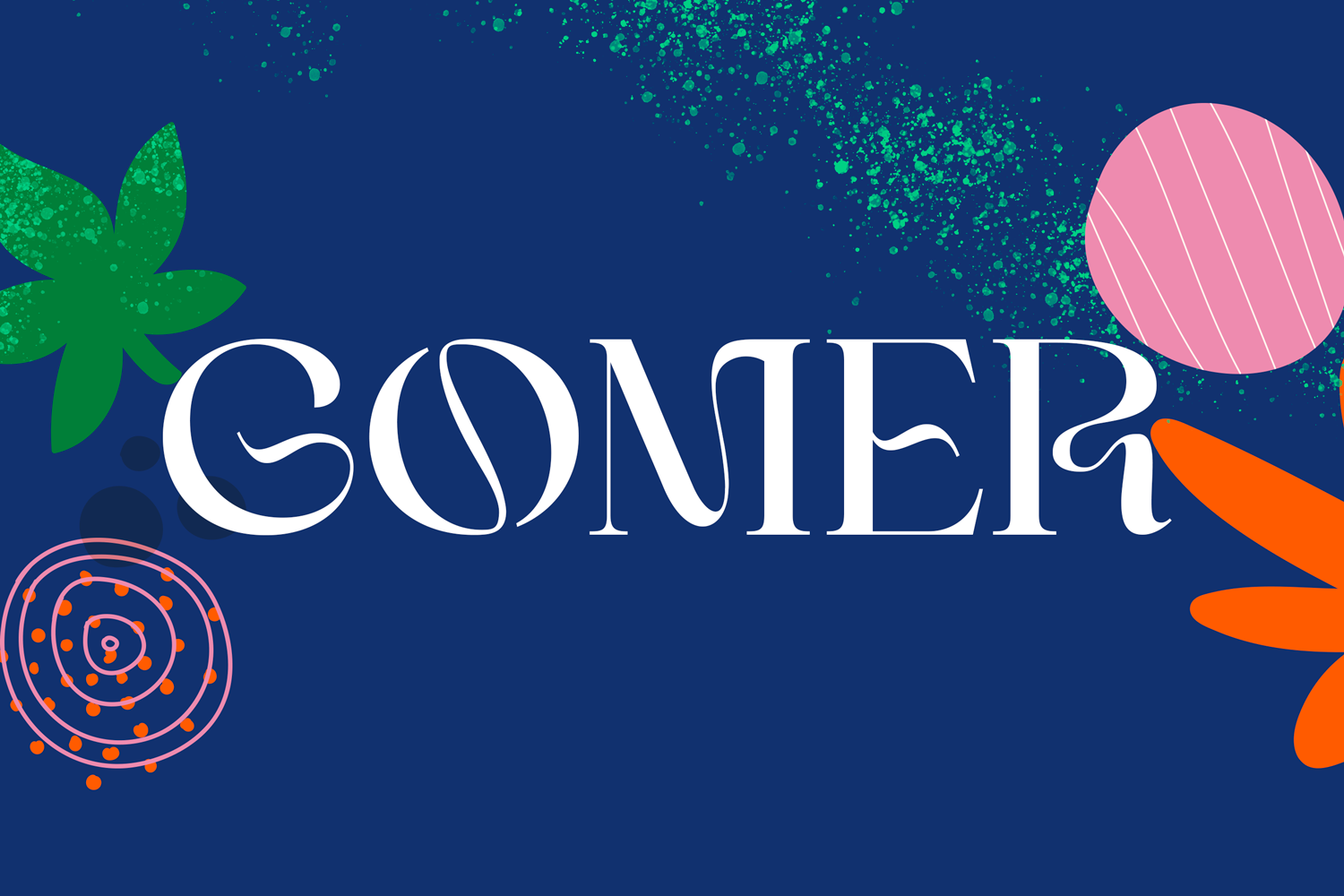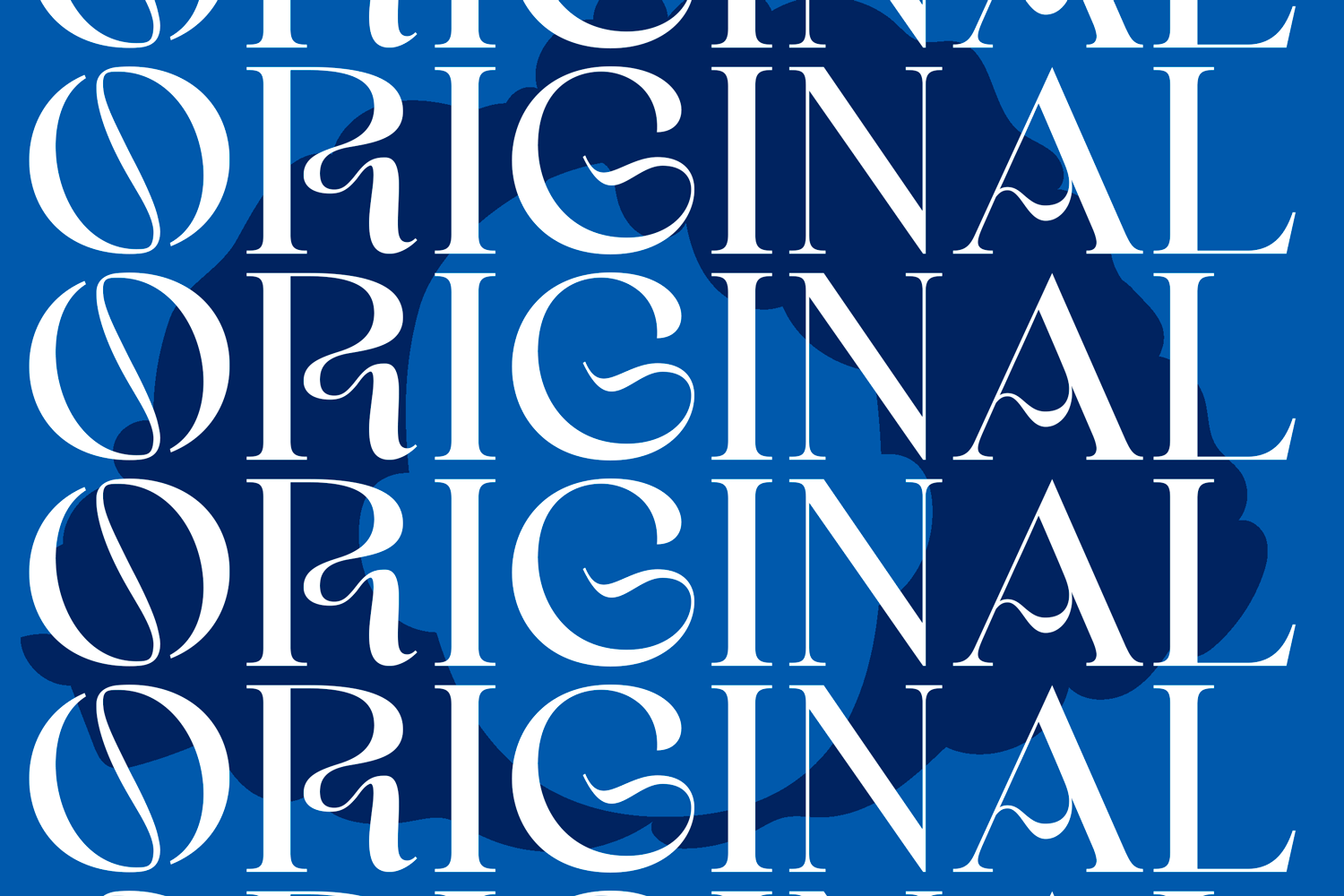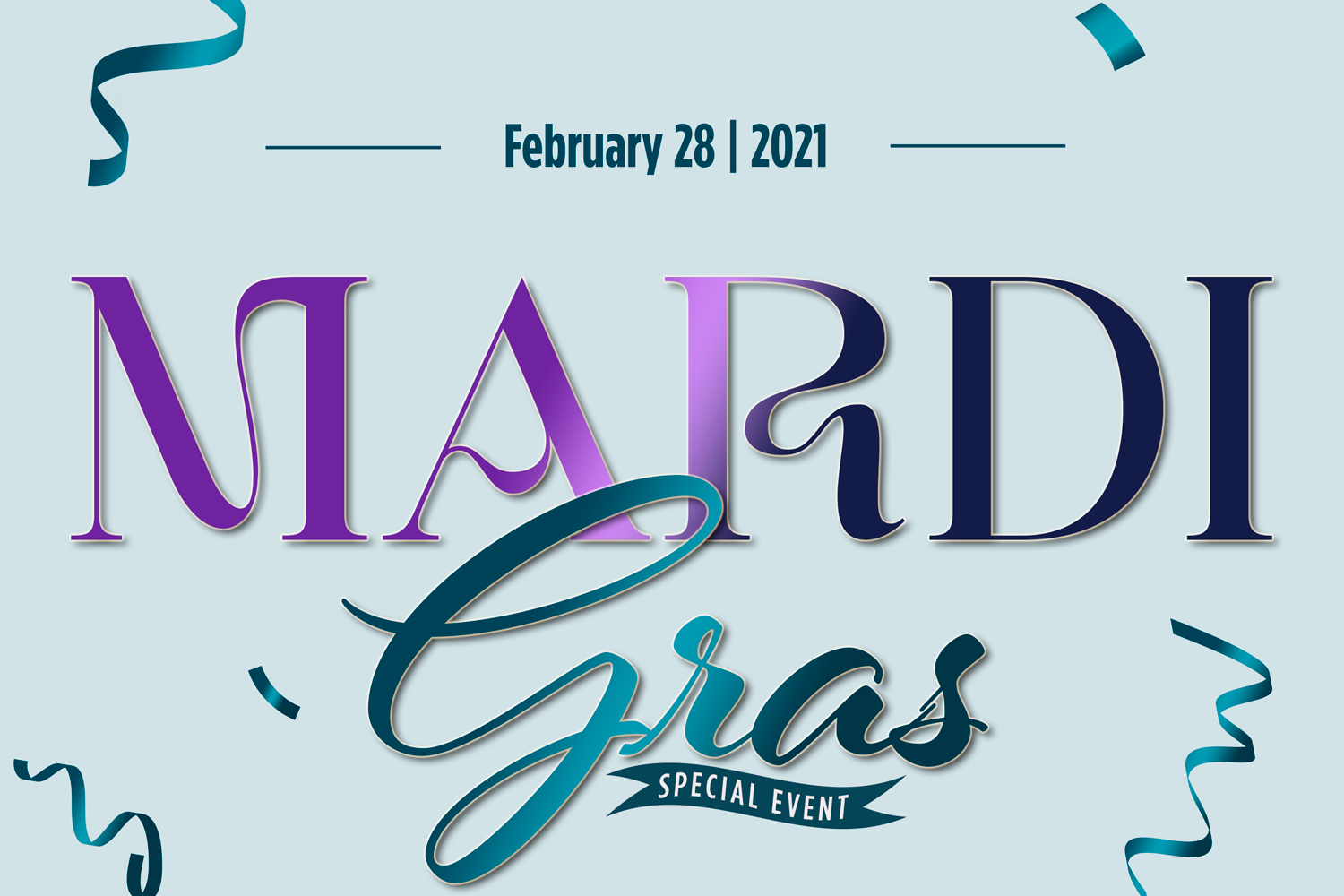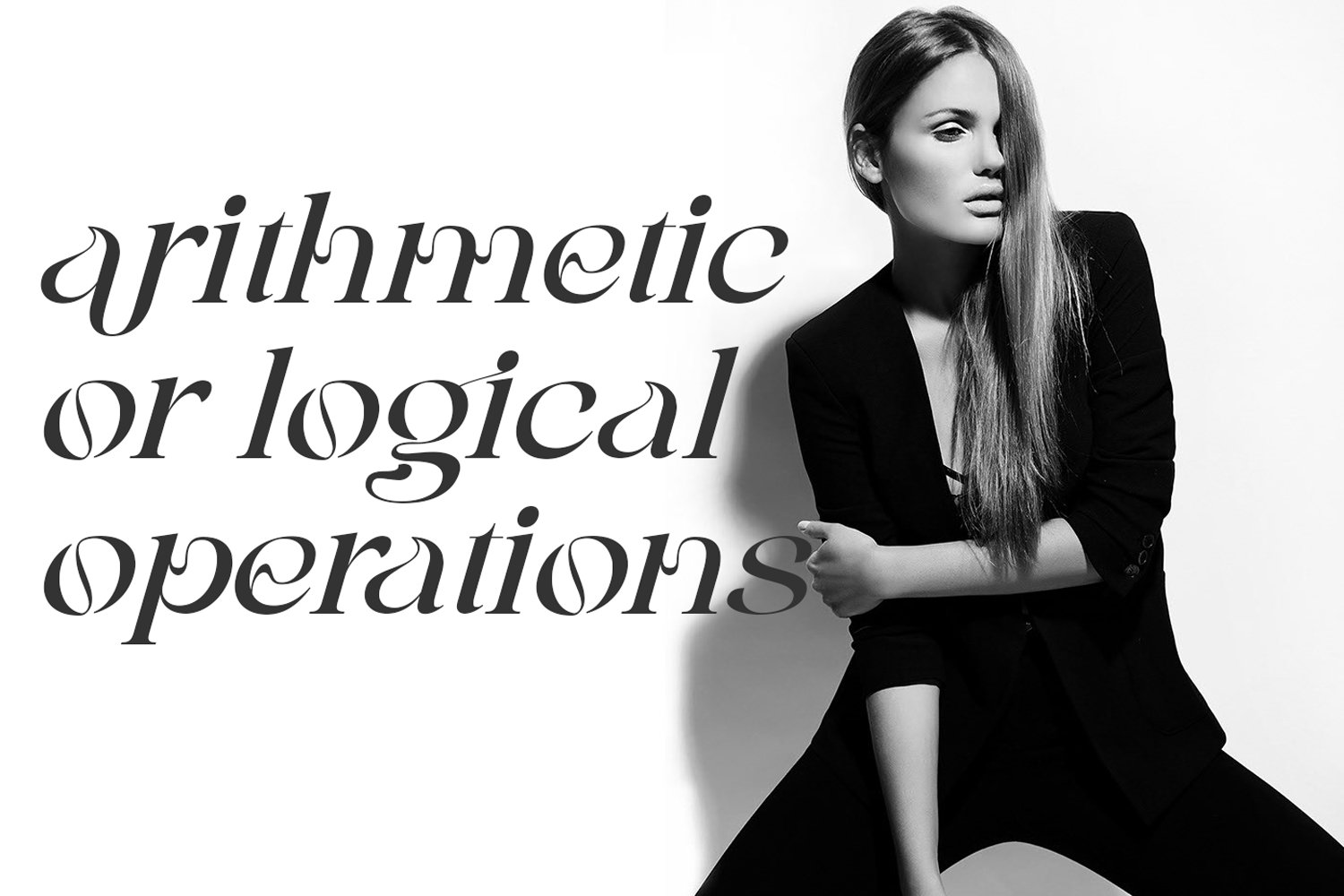
Engage Font
Engage Font – Modern Serif Font with multi shapes and lines. A delicate modern serif includes classy regular and multilingual letters, symbols, punctuation, numerals and brings a touch of character to any design. A clean, elegant hand-drawn script font with natural flow contains upper & lowercase characters, all punctuation, numerals, and gives a custom-made feel to any text. It’s a perfect choice for logos, headlines, social media posts, invitations and so many more.
To make it look more unique, here we prepared some ligatures:
ag ah ak an am ar cs dg dh dk dn dm dr gi hg hh hk hn hm hr ib ih ik il jb jh jk jl ks ng nh nk nn nm nr ug uh uk un um ur ss ri rj mg mh mk mn mm mr…